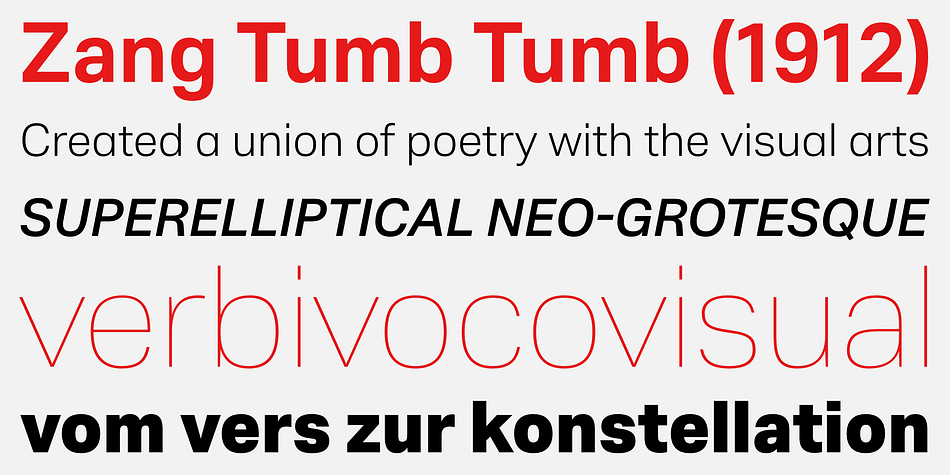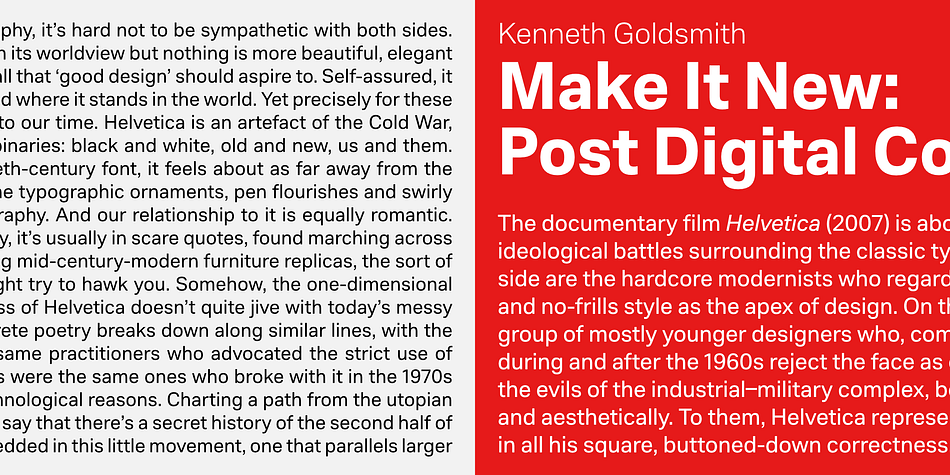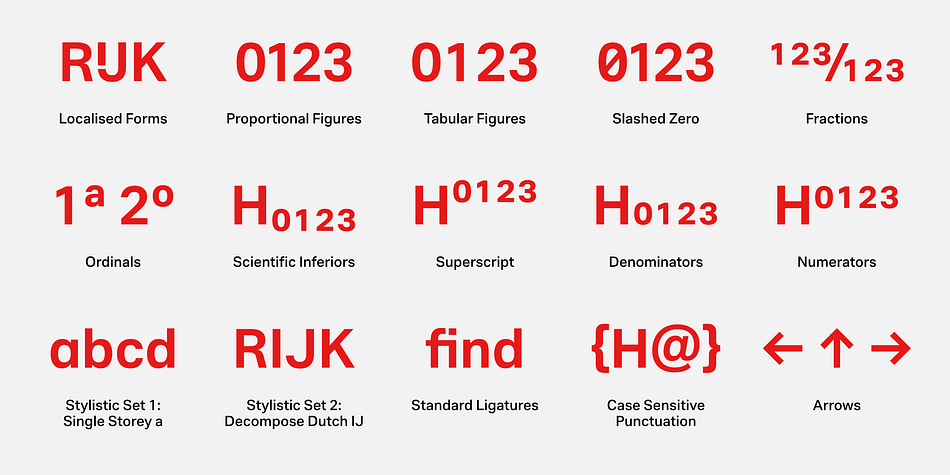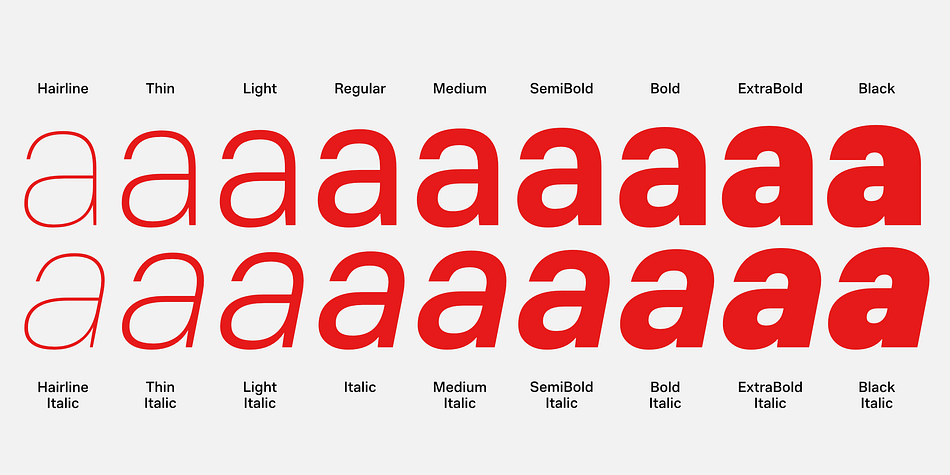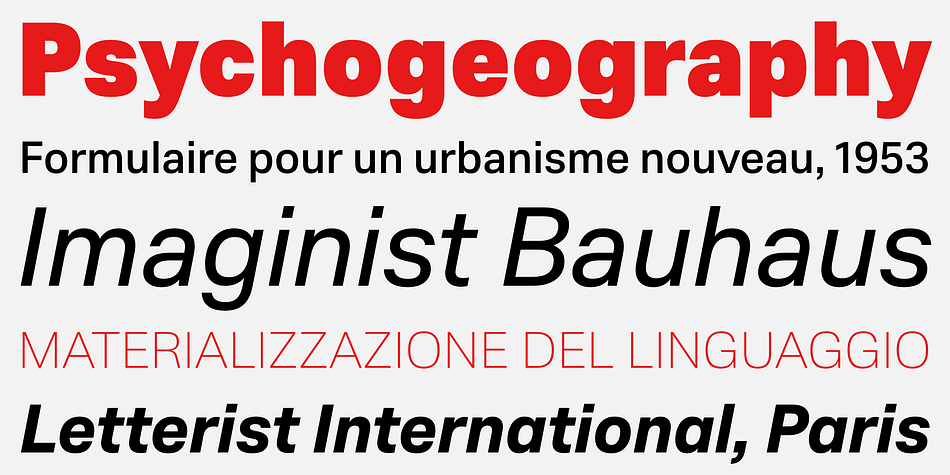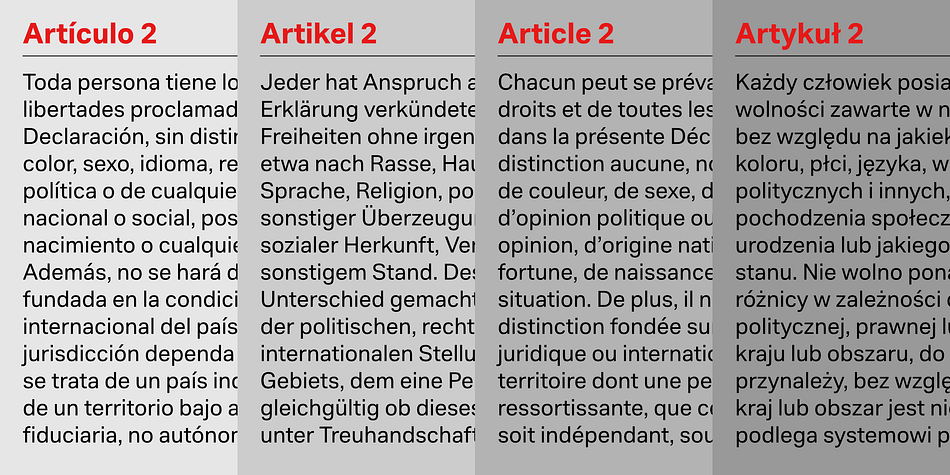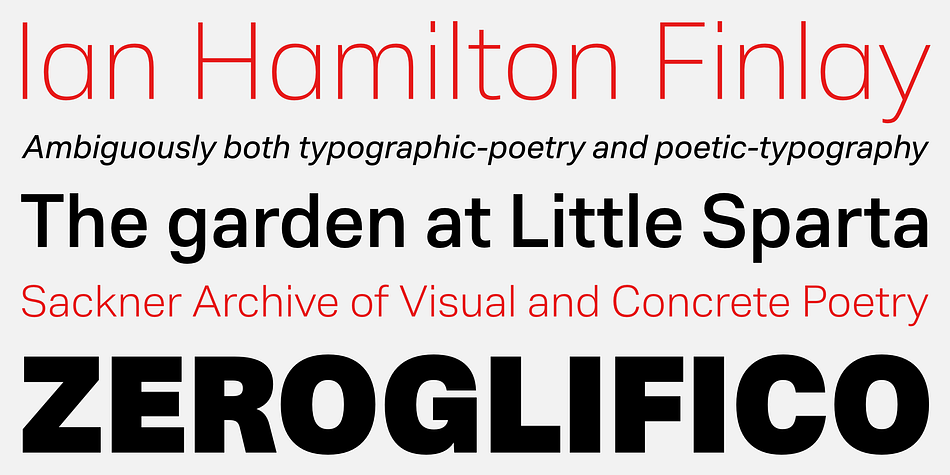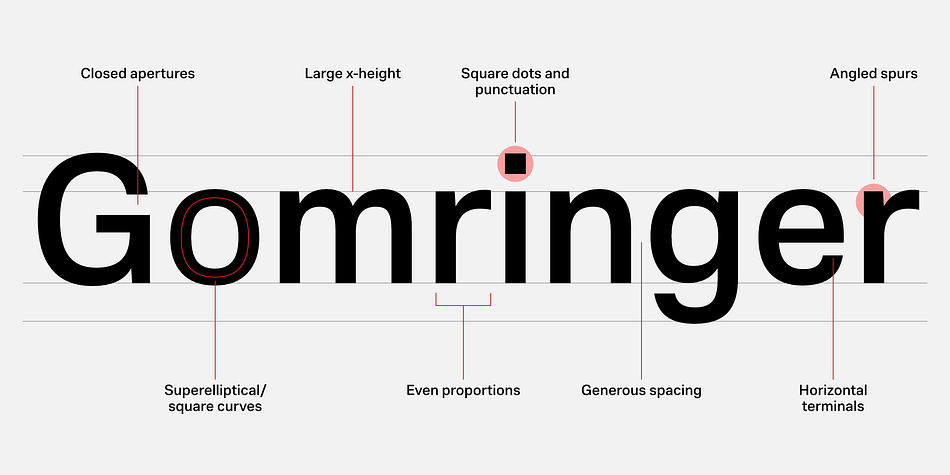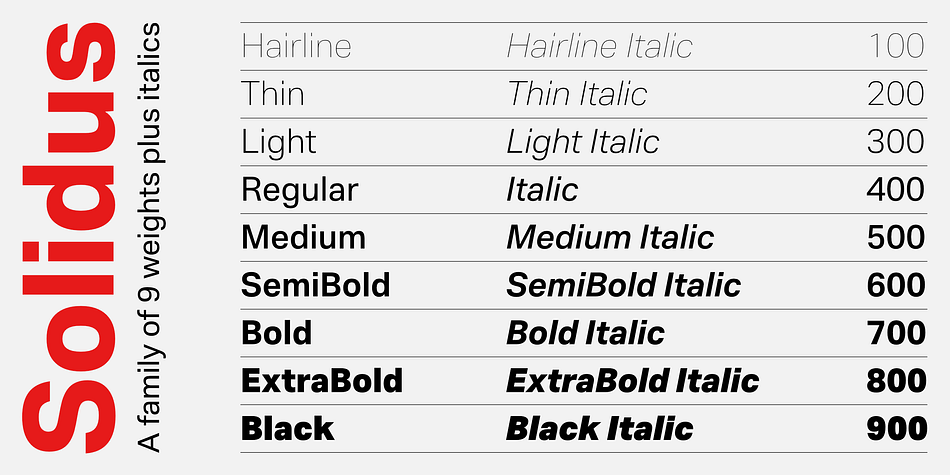
Solidus
Designed by Stuart Brown, Solidus is a sans serif font family. This typeface has nineteen styles and was published by Brown Type.
Inspired by the heuristic typography of the Concrete Poetry movement, Solidus is a hardworking and unobtrusive sans in the Neo-grotesque style. Its simplified features, generous spacing and squarish curves imbue a sense of sobriety and allow the textual information to take centre stage, whether in body copy or at display sizes. These neutral attributes also provide a solid base for further experimentation with contrast and style, allowing the family to develop and become more expressive as part of future updates.
Solidus is available in a robust range of weights from a wafer-thin Hairline to a hefty Black, each with accompanying italics. As is typical of the Neo-grotesque style the italics are oblique (slanted) in construction and have the same advance width as the uprights. Each font supports 96 Latin-based languages and comes equipped with a range of useful OpenType features. Solidus is suitable for a wide range of applications and ships in both static and variable formats.